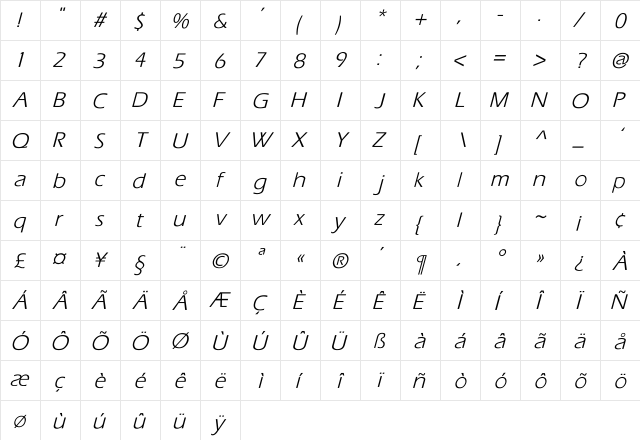
Eras Italic
Design Context for Eras Typeface
Eras offers clean, dependable letterforms without strong stylistic allegiance, making it a practical choice for designers who need flexibility. The dynamic lean of this cut emphasises speed and emphasis in any layout.
Pro Tip: Use Eras for emphasis, pull quotes, and subheadings where its slanted energy can add rhythm to the layout.